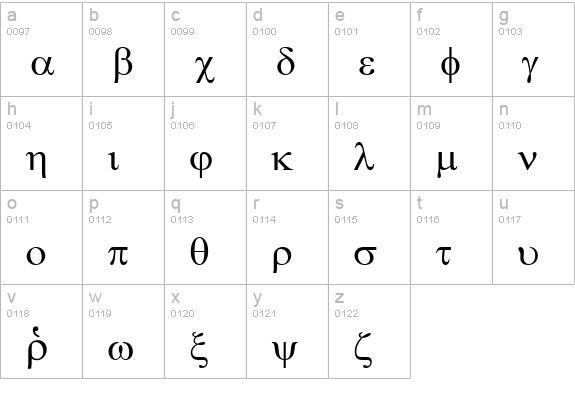
Symbol Accentuated Font Details
Symbol Accentuated font is a unique and elegant typeface that combines traditional letterforms with intricate symbols and accents. This font is perfect for adding a touch of sophistication and style to your designs. With its attention to detail and artistic flair, Symbol Accentuated font is sure to make a statement. Best of all, Symbol Accentuated font is available for free download at FontsMarket.com. You can easily access this stunning font and use it in your projects without any cost. Don't miss out on the opportunity to enhance your designs with the beauty and versatility of Symbol Accentuated font. Download it today and elevate your creative work to new heights.